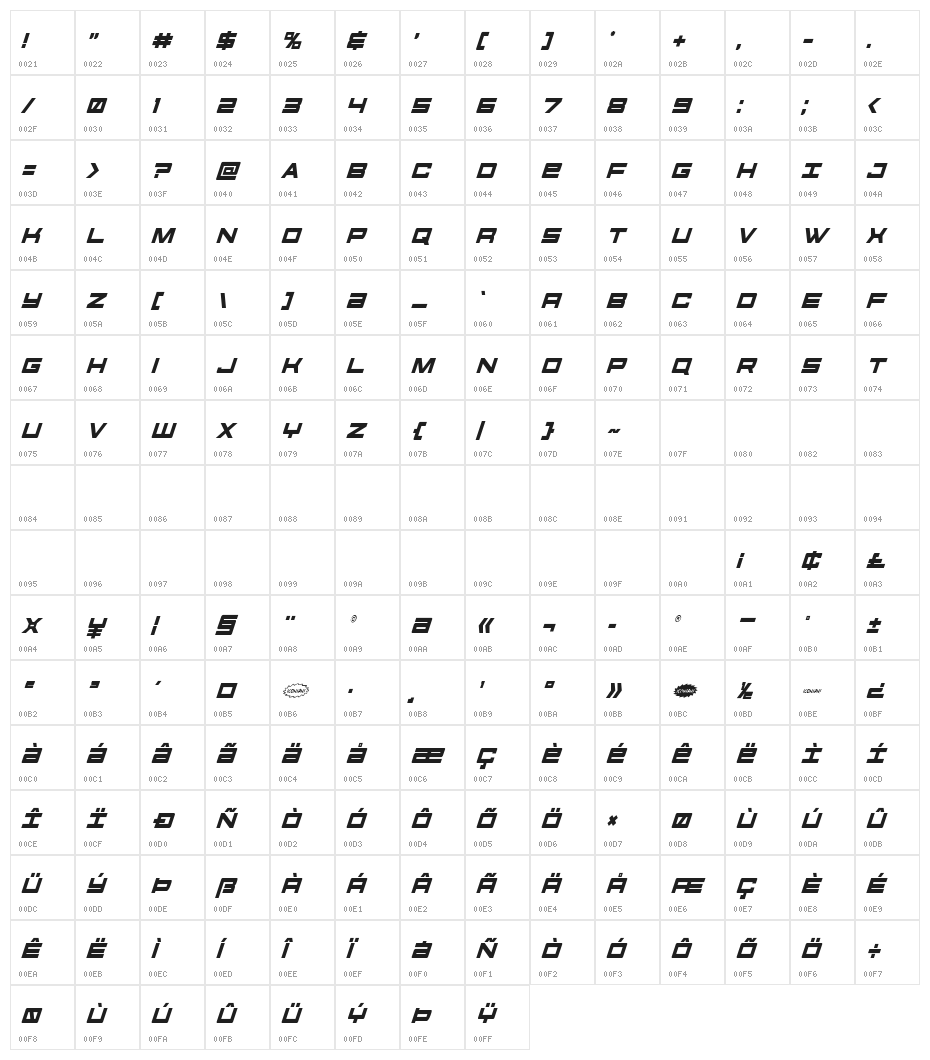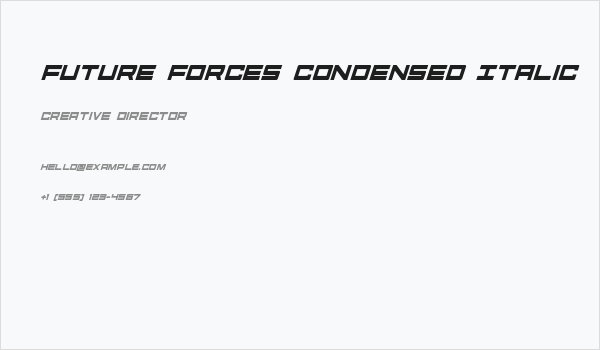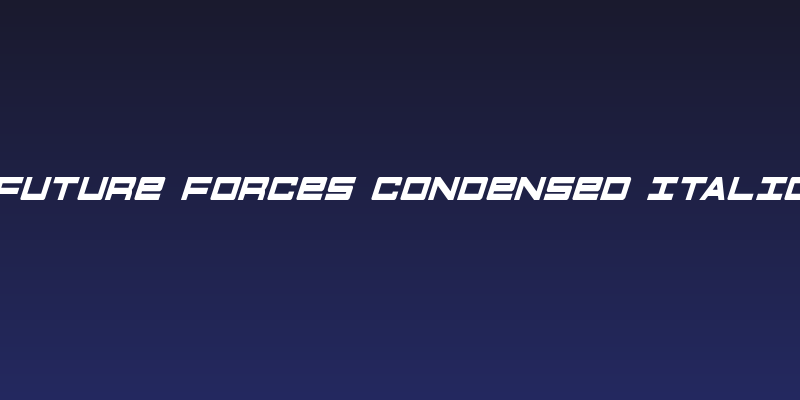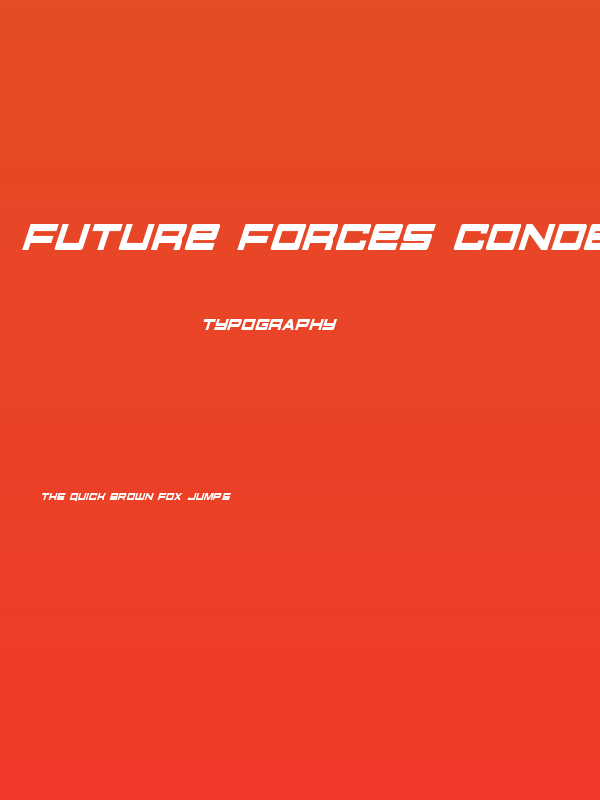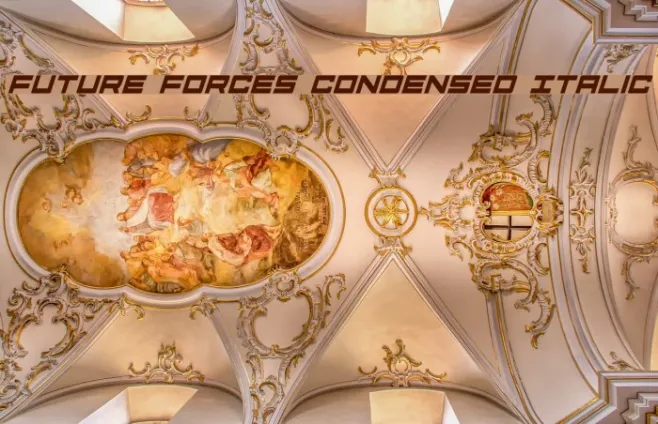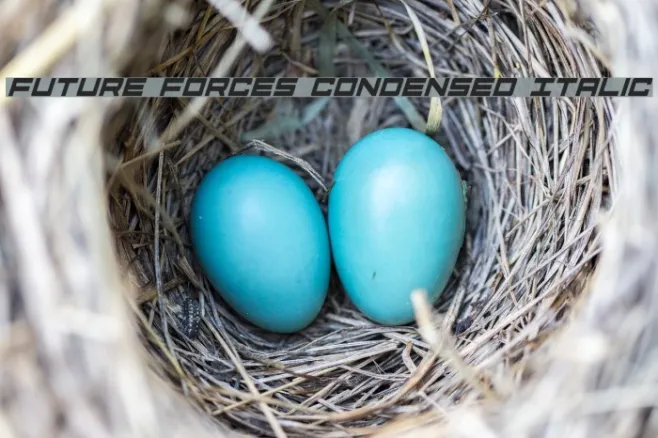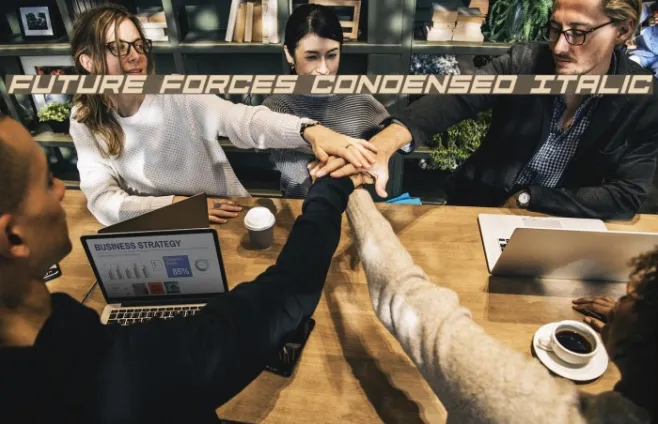
Future Forces Condensed Italic Font
Future Forces Condensed Italic Description
This font features a futuristic and dynamic style, characterized by its sharp angles and italicized form. The condensed nature of the letters gives it a compact appearance, making it suitable for space-saving designs. The uppercase and lowercase letters maintain a consistent slant, enhancing the sense of motion and speed. The numerals and special characters follow the same design principles, ensuring uniformity across all glyphs. The bold strokes and geometric shapes contribute to a modern and tech-inspired aesthetic, ideal for projects that require a cutting-edge look.
| Proposed Projects | Ideal for tech branding, sci-fi movie posters, video game titles, and futuristic event flyers. |